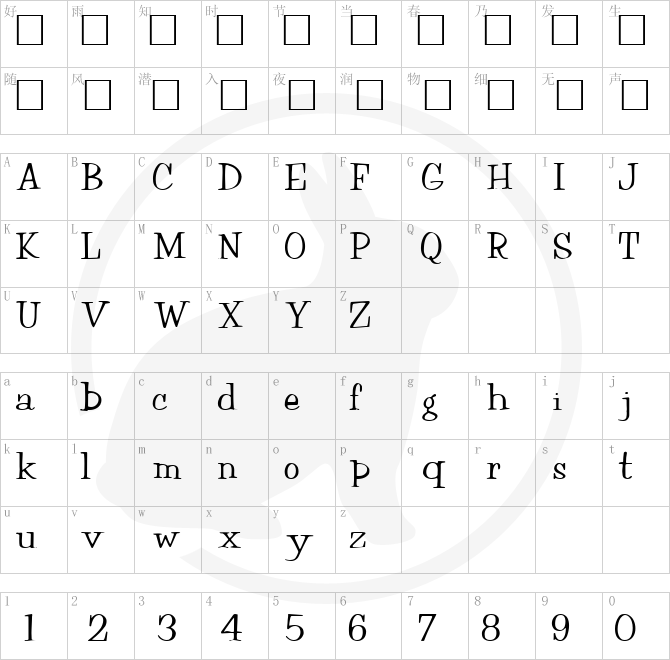
FairChild85-Regular-ttext.ttf is a very beautiful artistic font, FairChild85-Regular-ttext.ttf is widely used in the design and printing of various books and pictures,FairChild85-Regular-ttext.ttf has a strong visual impact,FairChild85-Regular-ttext.ttf is a commonly used font in newspapers, magazines and books, and is used in posters, e-commerce Poster design, store design, logo design, font design and other fields.FairChild85-Regular-ttext.